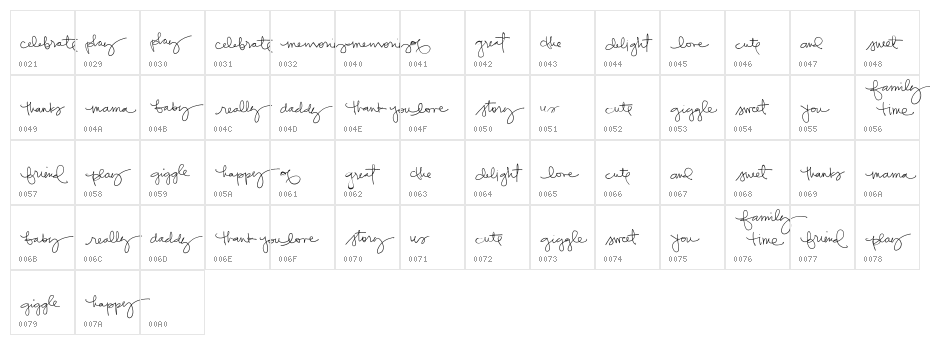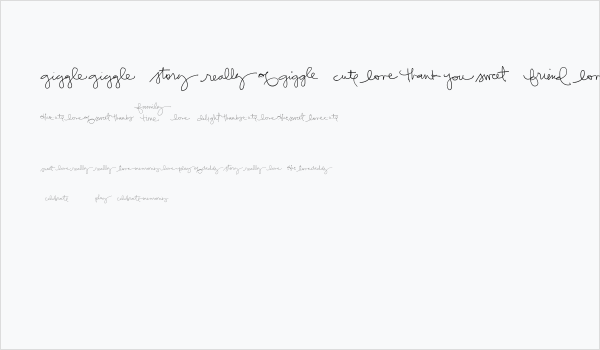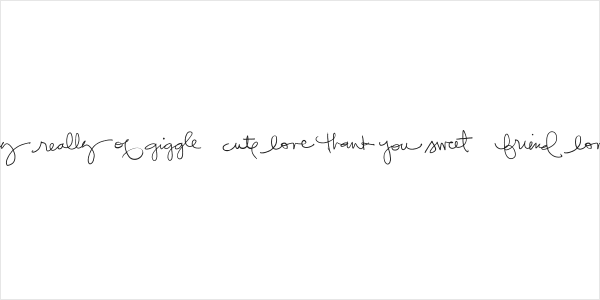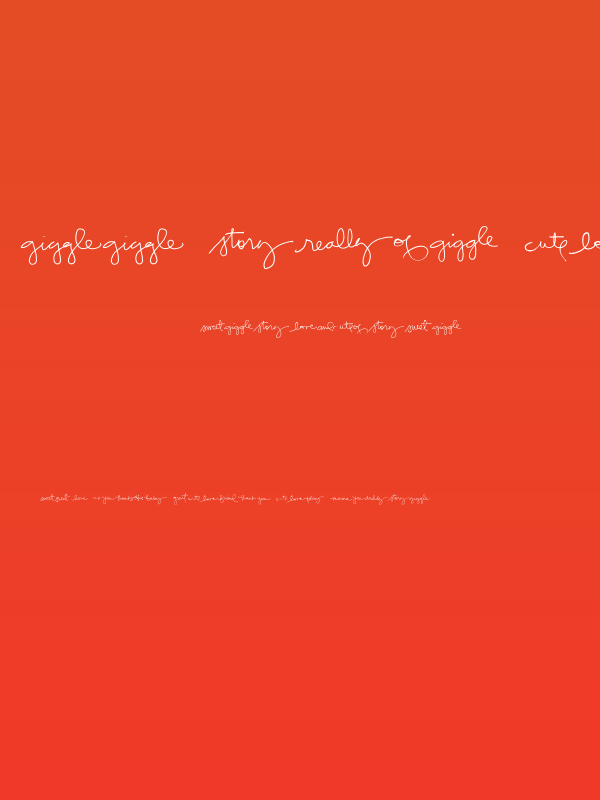
SS Play Font Words Font
SS Play Font Words Description
This font features a playful and whimsical handwritten style, characterized by its flowing, cursive script. The letters are connected with smooth, continuous strokes, giving it a casual and friendly appearance. The font maintains a consistent line weight throughout, which adds to its legibility while retaining a personal touch. The overall design is informal and relaxed, making it suitable for projects that require a touch of personality and warmth. The characters have a slight slant, enhancing the handwritten feel, and the spacing between letters is moderately tight, which helps maintain the flow of the text.
| Proposed Projects | Ideal for greeting cards, invitations, personal notes, and playful branding projects. |